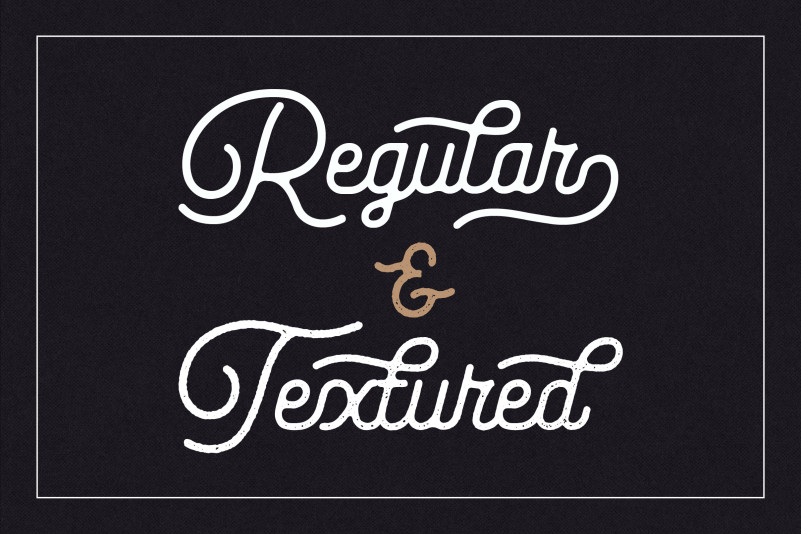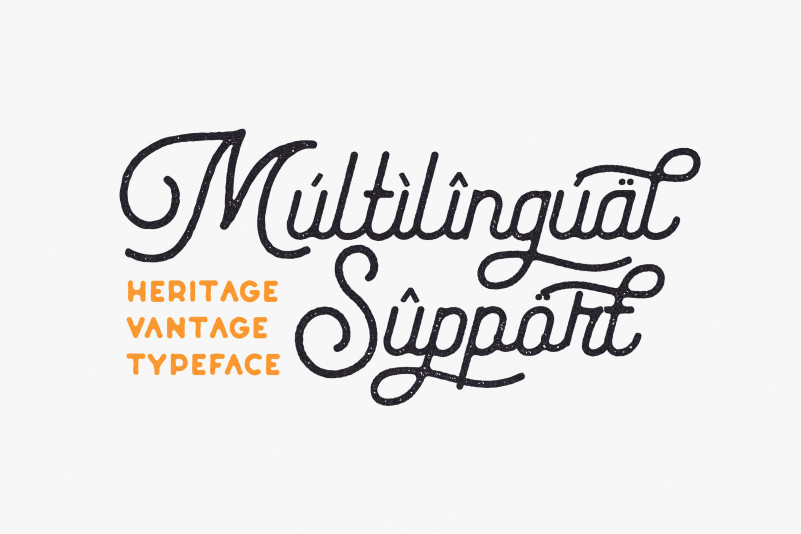
Heritage Bestie Font
Heritage Bestie Script Font is a vintage soft script and sans serif font with a textured version and two styles script and sans. Also with beautiful alternates, Swashes. Perfect fair of sans and script font for retro vintage styles. Great for Logotype, Branding Design, Logo Design, Digital Lettering Arts, T-Shirt/Apparel, Poster, Magazine, Signs, Advertising Design, and any vintage design needs.
– Alternate Letters, Ligature & Swash/Tail